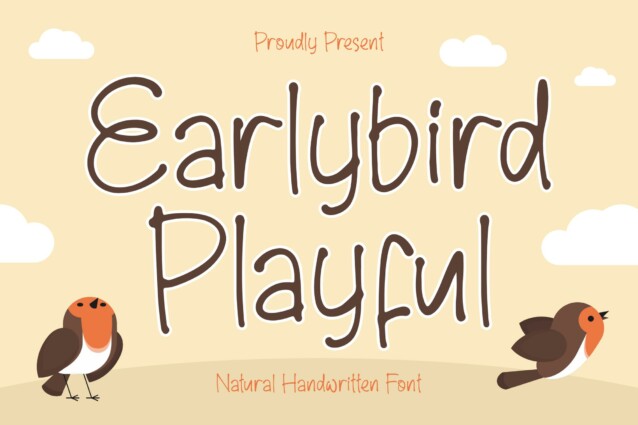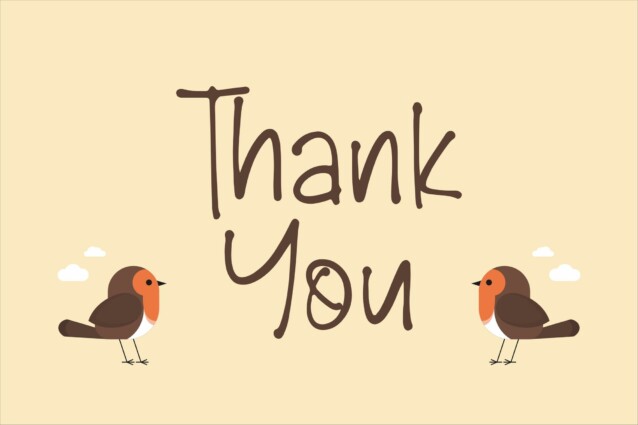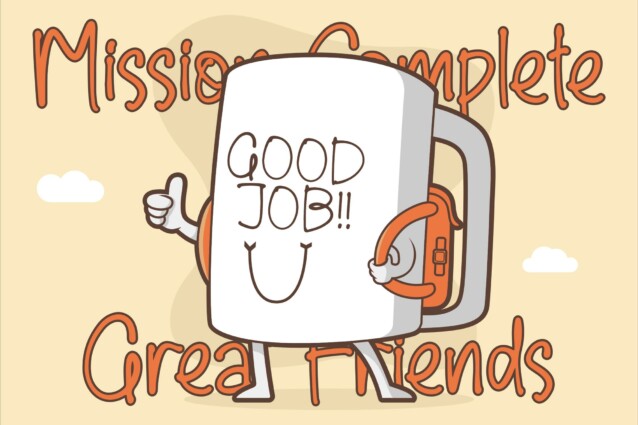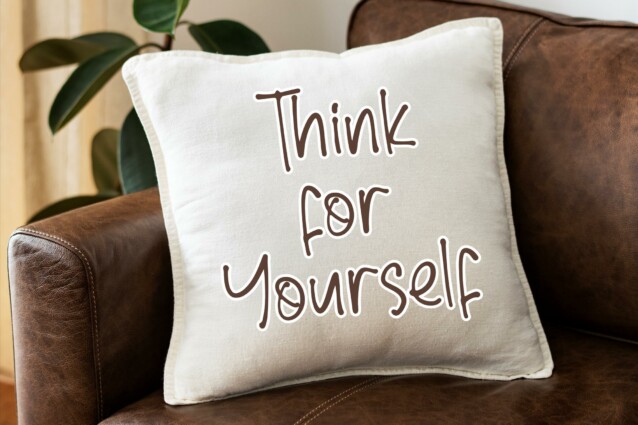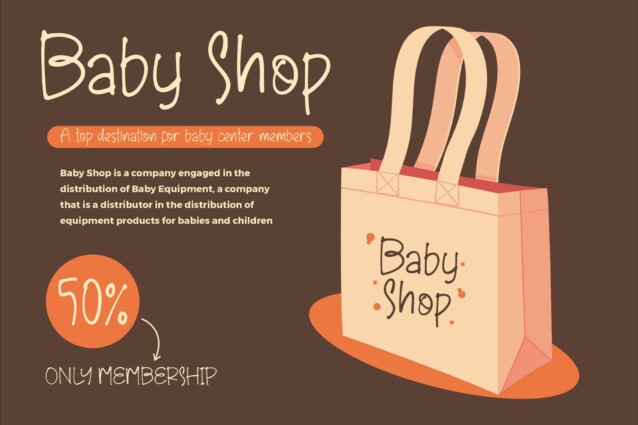
Earlybird Playful Display Font
Earlybird Playful Display Font is a natural handwritten font, suitable for any projects such as: logos, branding projects, homeware designs, product packaging, mugs, quotes, posters, shopping bags, t-shirts, book covers, name card, invitation cards, greeting cards, label, photography, watermark, special events, and all your other lovely projects that need a beautiful script taste.